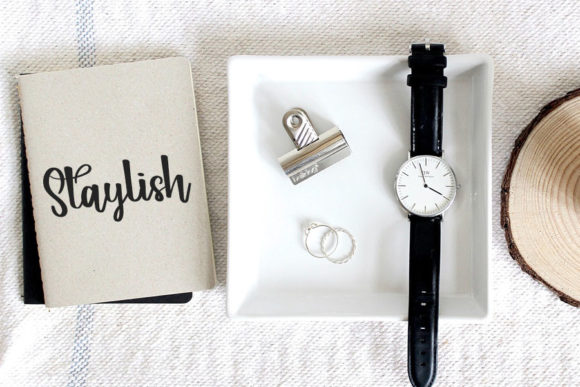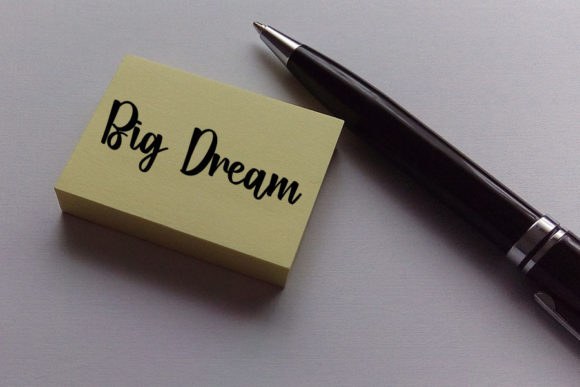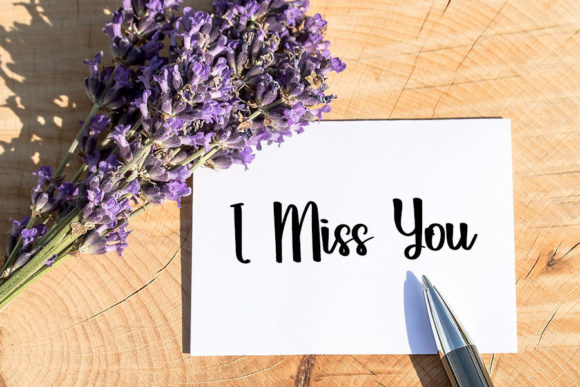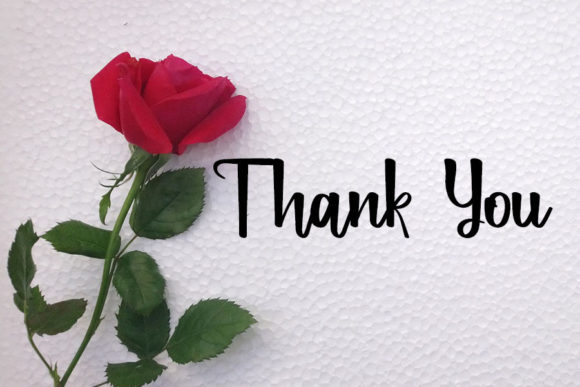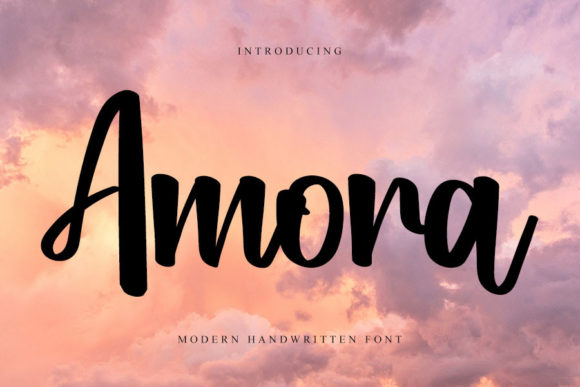
Introducing Amora Font: Elevate Your Designs with Elegance and Sophistication
In the world of typography, fonts play a crucial role in conveying the tone and aesthetic of a design. For those seeking a beautiful and refreshing look, Amora Font is an exquisite choice. This lovely and delicate script handwritten font exudes elegance and class, making it perfect for designers and crafters looking to add a touch of sophistication to their projects.
The Story Behind Amora Font
Amora Font was particularly crafted for those who need a beautiful and refreshing look to their designs. The creators of Amora Font aimed to design a typeface that would bring a sense of luxury and refinement to any project. With its delicate and elegant strokes, Amora Font is sure to impress. Whether you’re working on a branding project, wedding invitation, or packaging design, Amora Font is the perfect choice.
Key Features of Amora Font
So, what makes Amora Font so special? Here are some of its key features:
- Delicate and Elegant Strokes: Amora Font boasts delicate and elegant strokes that give it a sophisticated look.
- Script Handwritten Style: The font’s script handwritten style adds a touch of warmth and personality to any design.
- Highly Readable: Despite its elegant appearance, Amora Font is highly readable, making it perfect for body text and headings.
- Multilingual Support: Amora Font supports multiple languages, making it a great choice for global brands and designers.
Use Cases for Amora Font
Amora Font is a versatile typeface that can be used in a variety of design projects. Here are some use cases:
- Branding and Logo Design: Amora Font is perfect for creating elegant and sophisticated brand identities.
- Wedding and Event Invitations: The font’s delicate and elegant strokes make it ideal for wedding invitations, save-the-date cards, and other event materials.
- Packaging Design: Amora Font can add a touch of luxury and sophistication to packaging design, making it perfect for high-end products.
- Digital and Print Media: The font’s high readability and elegant appearance make it suitable for digital and print media, including magazines, brochures, and posters.
Tips for Using Amora Font Effectively
To get the most out of Amora Font, here are some tips:
- Pair with Bold Fonts: Pair Amora Font with bold fonts to create a striking contrast and add visual interest to your design.
- Use for Headings and Titles: Use Amora Font for headings and titles to add a touch of elegance and sophistication.
- Experiment with Colors: Experiment with different colors to find the perfect match for your design. Amora Font looks stunning in pastel shades, metallic colors, and rich jewel tones.
In conclusion, Amora Font is a beautiful and elegant script handwritten font that can elevate your designs to new heights. With its delicate and elegant strokes, highly readable design, and multilingual support, Amora Font is the perfect choice for designers and crafters seeking to add a touch of sophistication to their projects. Whether you’re working on a branding project, wedding invitation, or packaging design, Amora Font is sure to impress.